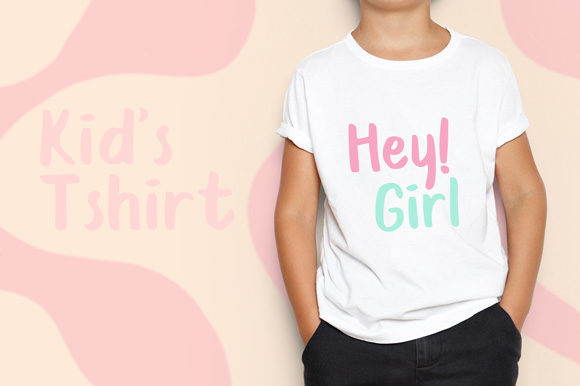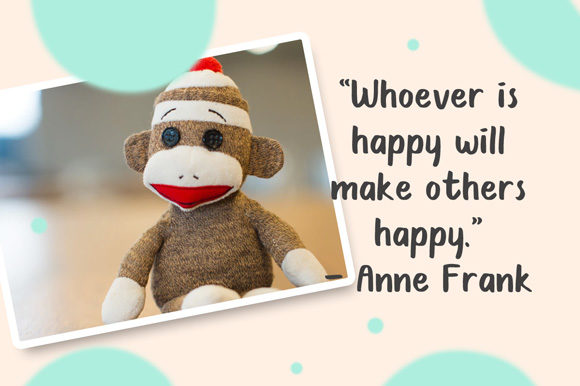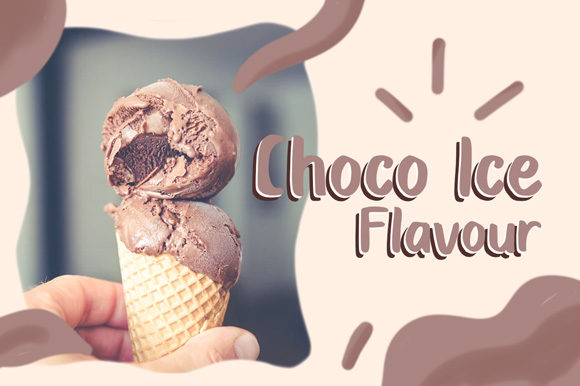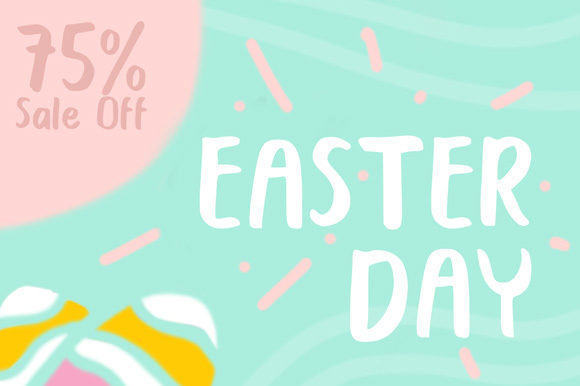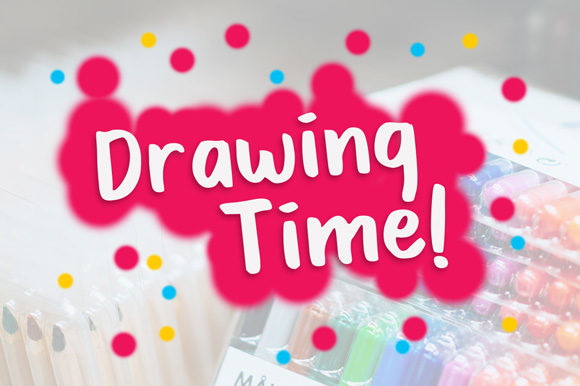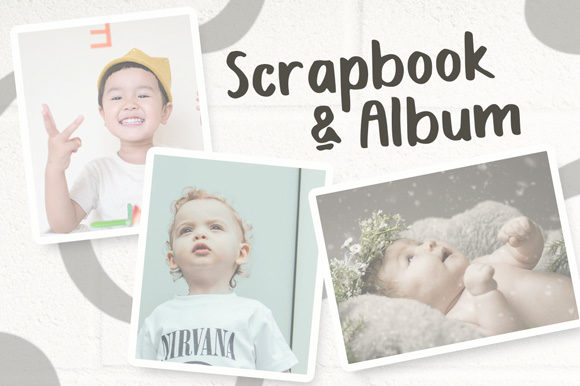
Remember the moment when you stumbled upon the perfect font for your project? The one that brought your idea to life and made it pop? For designers, finding the right font can be a game-changer. And for those who want to add a dash of playfulness to their work, there’s one font that stands out: the Bunbun Font.
This cheerful display typeface is designed to bring a smile to your audience’s faces. Its handwritten style is perfect for Easter designs, holiday cards, and accessories that need a cute and playful touch. Whether you’re working on a project for a children’s brand or a fun event, the Bunbun Font is sure to add a touch of whimsy to your designs.
Bunbun Font Key Features
- Font Family: Bunbun Font is a unique, hand-drawn font with a playful and whimsical feel.
- Character Set: The font includes a wide range of characters, including uppercase and lowercase letters, numbers, punctuation, and special characters.
- Unique Characteristics: Bunbun Font features intricate details and textures, giving it a one-of-a-kind look that sets it apart from other fonts.
- Legibility: Despite its playful nature, the font remains highly legible, making it suitable for a wide range of design applications, from branding and advertising to editorial and publishing.
Bunbun Font Review
As a designer, I was excited to dive into the Bunbun font and see what it had to offer. Overall, I found it to be a fun and quirky addition to any design project.
- The Bunbun font is incredibly playful and whimsical, making it perfect for designs that need a lighthearted touch.
- The font is highly customizable, with a wide range of options for colors, sizes, and styles.
- The Bunbun font is highly legible, even at smaller font sizes, making it a great choice for body text.
- The Bunbun font can feel a bit overused, especially in certain design contexts where it’s become a bit of a cliché.
- The font can be a bit difficult to read at very large font sizes, where the whimsical design elements can become overwhelming.
- The font is not suitable for formal or professional designs, where a more serious tone is required.
Overall, I’d give the Bunbun font 4 out of 5 stars. While it’s a fun and versatile font, it’s not without its limitations. I’d recommend it for projects that require a playful touch, but use it judiciously to avoid overuse.
Tips for Getting the Most Out of Bunbun Font
Use the Bunbun font for whimsical and playful designs, such as:
- Party invitations
- Food and drink labels
Remember to pair the Bunbun font with complementary fonts to create a visually appealing design.
Alternatives to Bunbun Font for Designers
Great Vibes Font is a beautiful, elegant script font that is perfect for creating a warm and inviting atmosphere. It is ideal for use in logos, headings, and titles where a touch of sophistication is desired.
Compared to Bunbun Font, Great Vibes Font has a more refined and polished look, making it suitable for high-end branding and design projects.
Alex Brush Font is a modern calligraphy font that is great for creating a unique and personal touch in designs. It is perfect for use in invitations, quotes, and other creative projects where a handwritten feel is desired.
Unlike Bunbun Font, Alex Brush Font has a more modern and edgy look, making it suitable for trendy and avant-garde designs.
Pacifico Font is a beautiful, elegant script font that is perfect for creating a relaxing and calming atmosphere. It is ideal for use in logos, headings, and titles where a touch of serenity is desired.
Compared to Bunbun Font, Pacifico Font has a more relaxed and casual look, making it suitable for outdoor and beach-themed designs.